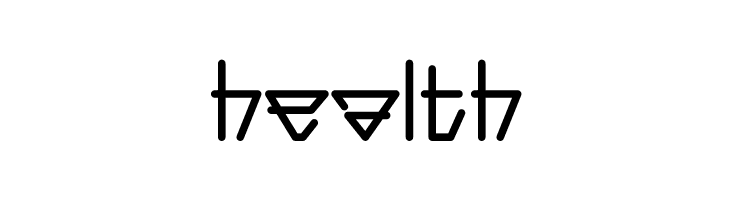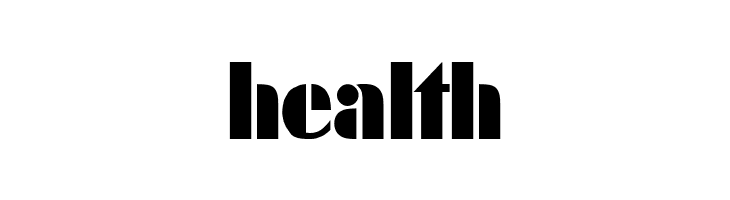
A bold, playful handwritten font with expressive strokes.
A bold, cursive script font with interconnected, flowing letters and dramatic loops.
A geometric, angular font with a futuristic and edgy style.
A bold, high-contrast decorative font with a modern flair.
A hand-drawn, crosshatched font with a playful and artistic style.
A bold, decorative font with a unique crosshatch pattern.
A bold, rugged font with a distressed, grunge appearance.
A bold, jagged, and italicized font with a dynamic and aggressive style.
A bold, distressed font with jagged edges and a dynamic slant.
A bold, distressed font with a rugged, hand-crafted appearance.
A bold, rugged, and condensed font with a distressed appearance.
A bold, jagged, and italicized font with a rugged, distressed style.
A bold, distressed font with a rugged, grunge-like appearance.
A bold, 3D, hand-drawn font with a rugged, playful style.
A bold, 3D italic font with rugged outlines and dynamic style.
A bold, condensed, and italicized font with a dynamic and energetic style.
A bold, slanted font with sharp, angular edges and an energetic style.
A decorative script inspired by traditional Balinese styles with intricate curves and flourishes.
A bold, decorative font with high contrast and intricate details.
A bold, italicized font with a modern, layered design using parallel lines.
A bold, hand-drawn font with a playful and expressive style.
A bold, energetic script font with brush-like strokes and playful curves.
A playful, bold, and handwritten-style font with rounded characters.
A playful, bird-inspired decorative font with bold, rounded characters.